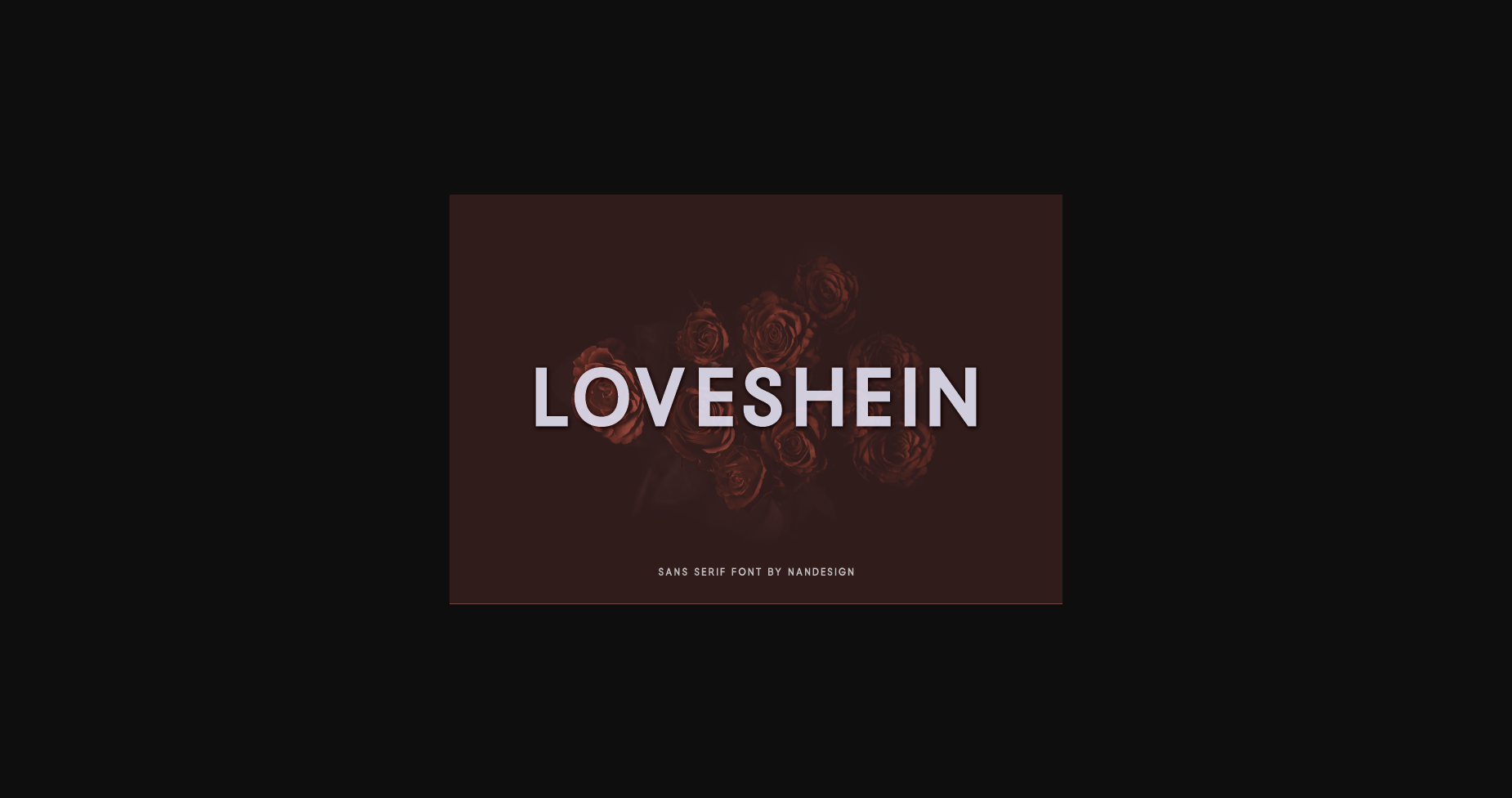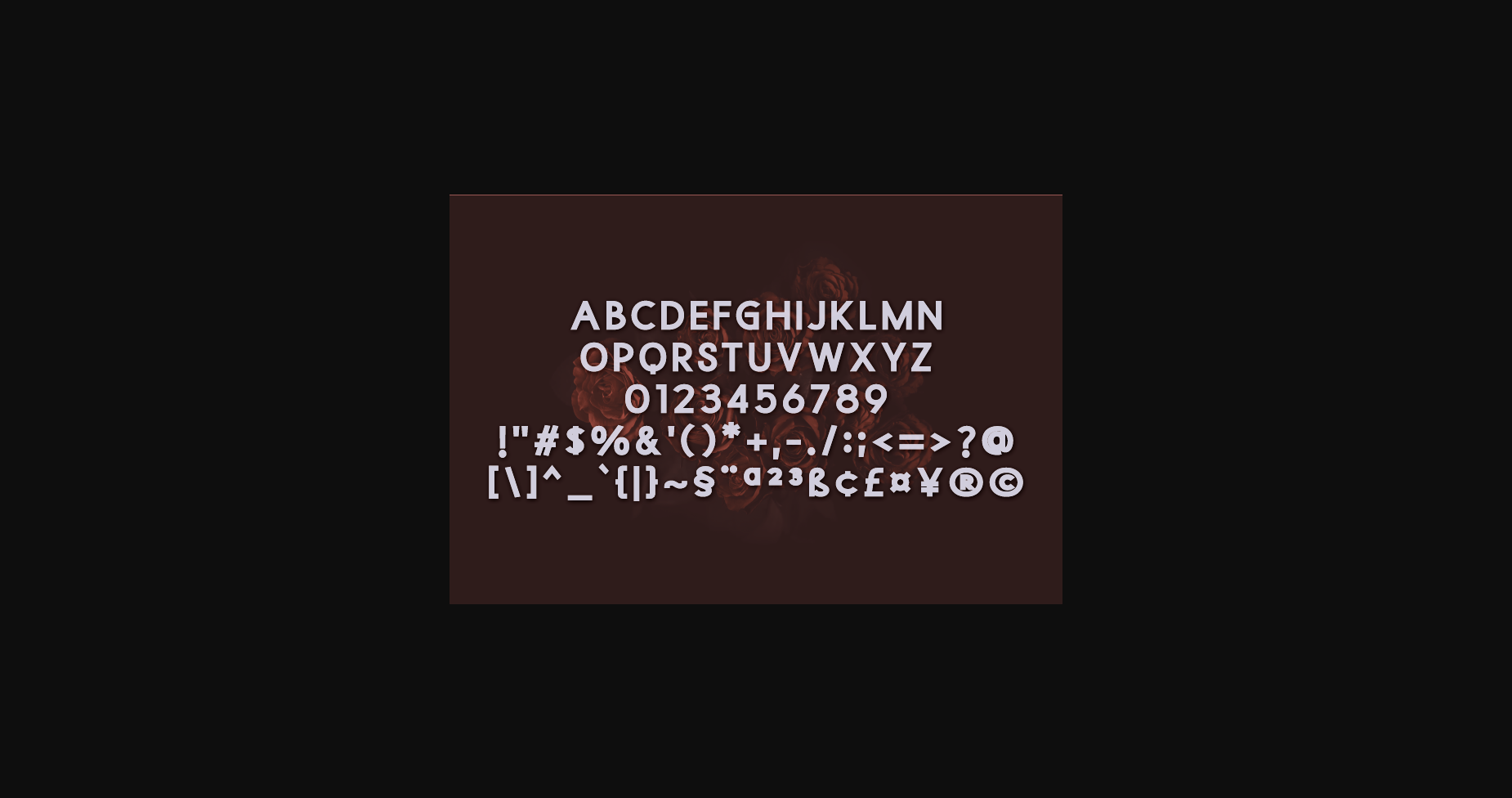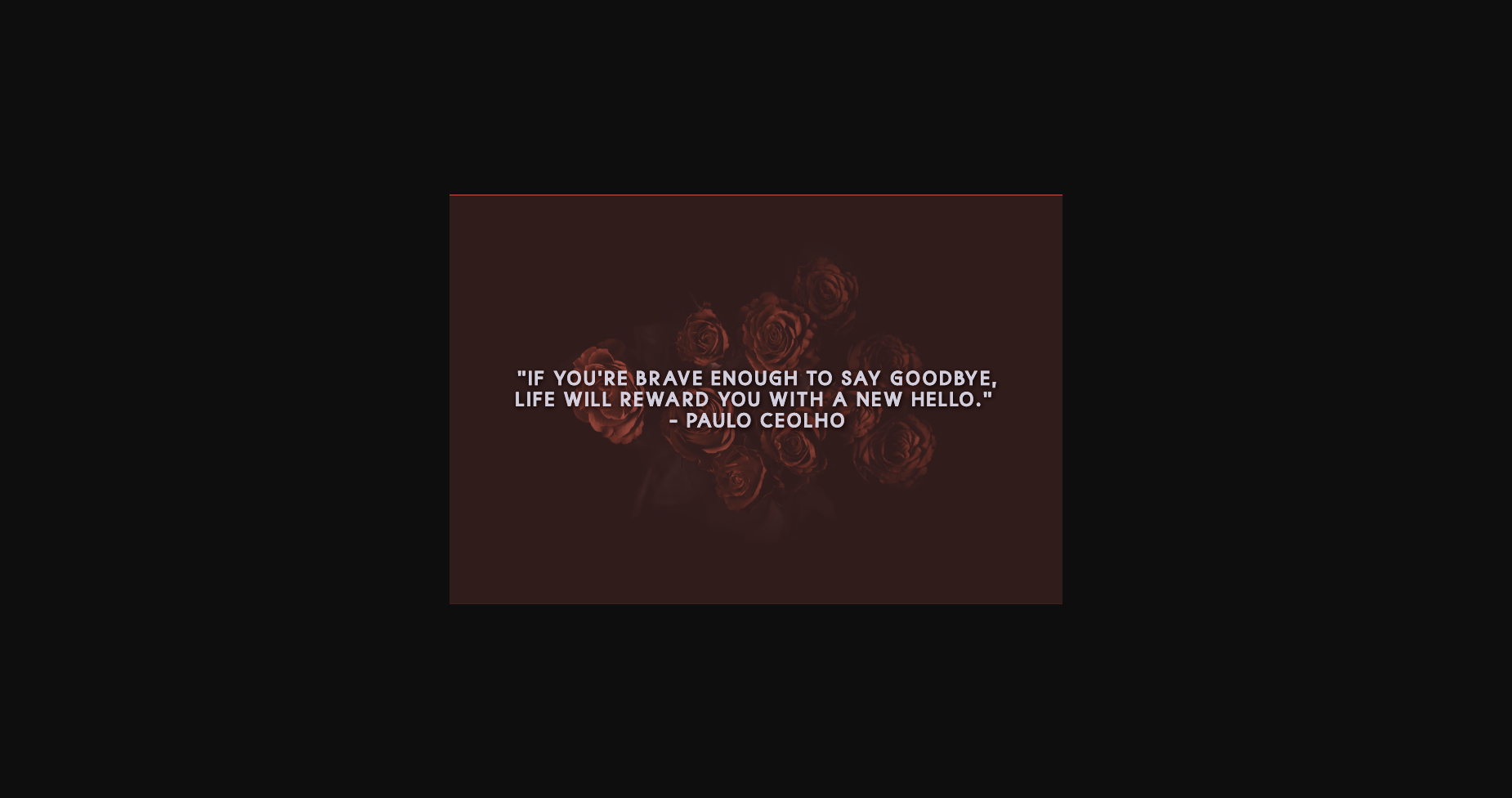
About Loveshein Font
Loveshein is a minimal, yet elegant sans serif font. Suitable to a wide variety of designs due to its neat and simple style, this font has the potential to become your favorite go-to font, no matter the occasion!